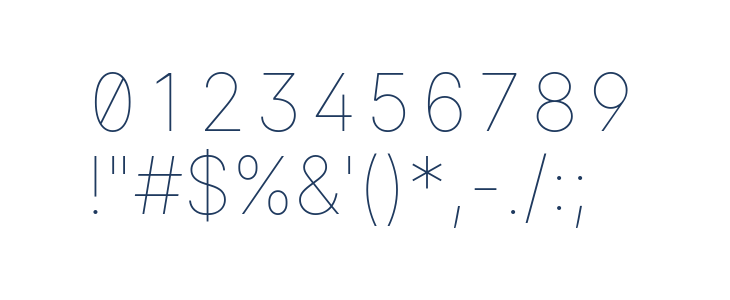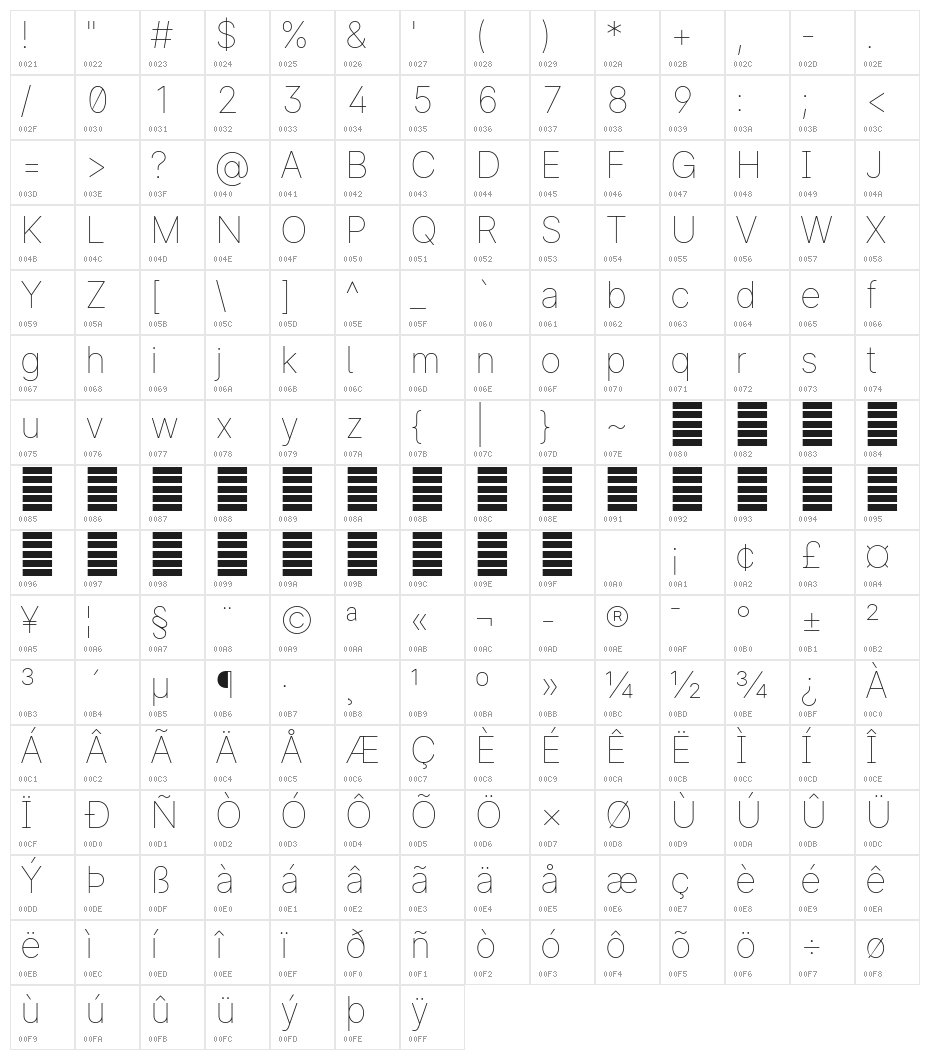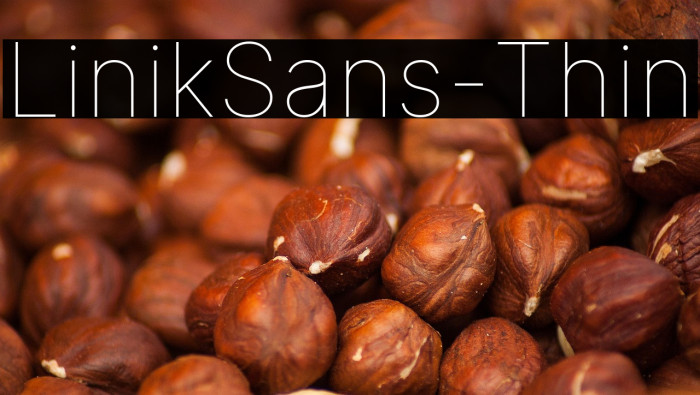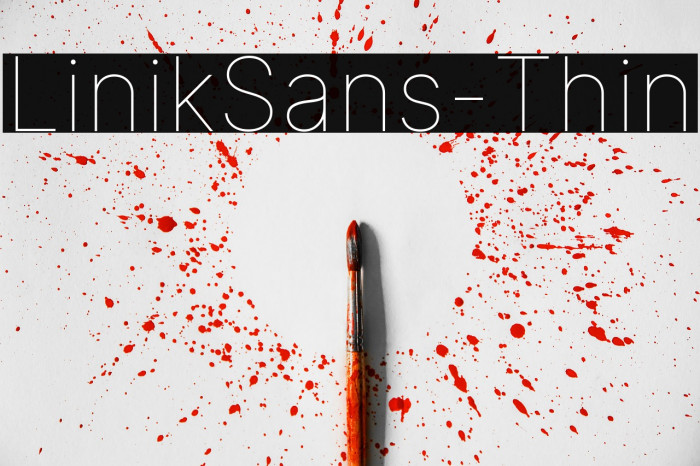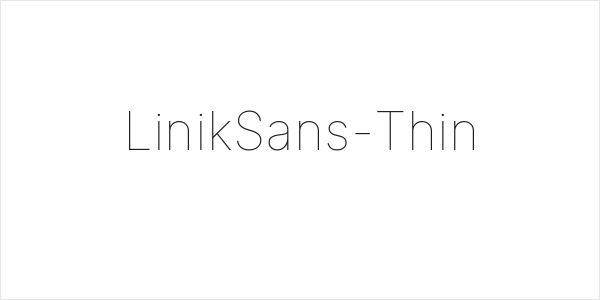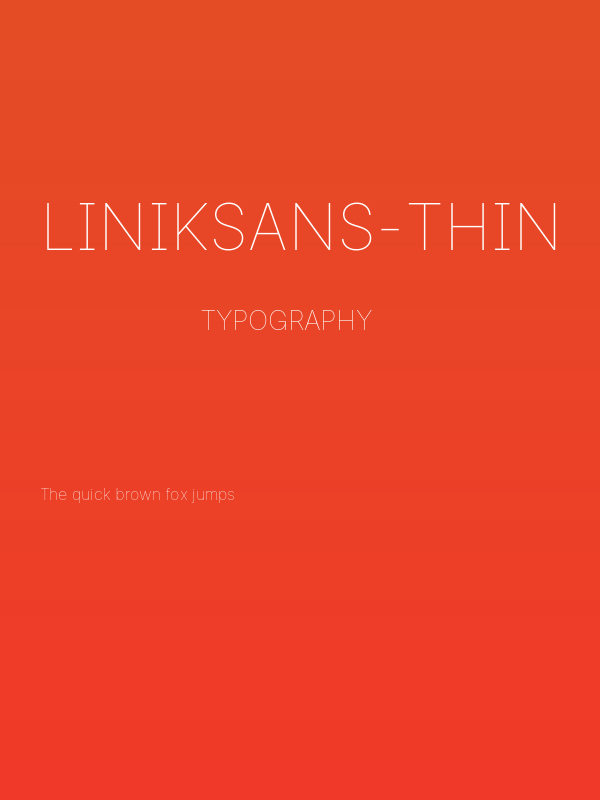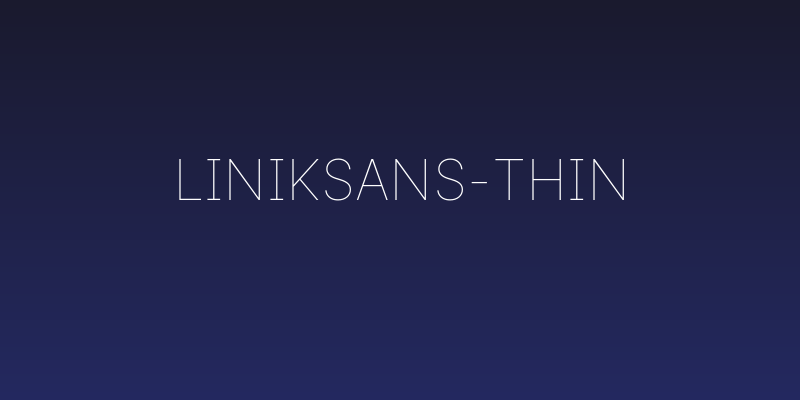
LinikSans-Thin Font
LinikSans-Thin Description
This font is a sleek and modern sans-serif typeface characterized by its thin, clean lines and minimalistic design. The characters are evenly spaced, providing a harmonious and balanced appearance. The uppercase and lowercase letters share a consistent height and width, contributing to a uniform look. The numerals and special characters maintain the same thin stroke, ensuring readability and elegance. This font's simplicity and clarity make it suitable for a wide range of applications, from digital interfaces to print media.
| Proposed Projects | Ideal for digital interfaces, minimalist branding, editorial layouts, and modern web design. |